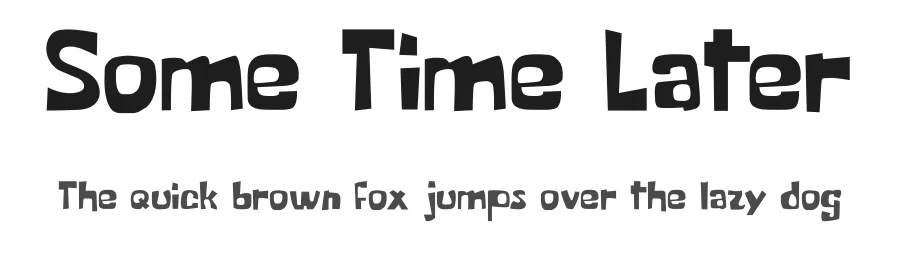
About Emaro Font
Emaro Specifications
| Font Family | Emaro |
| Full Name | Emaro Regular |
| PostScript Name | Emaro-Regular |
| Designer | Afkari Studio |
Emaro supports 91 languages.
Emaro Font is a decorative font that shines as a display or heading face. Pair it with a clean sans-serif or serif font for body text β the contrast creates a clear hierarchy while the two styles stay balanced and easy to read.
Emaro Font